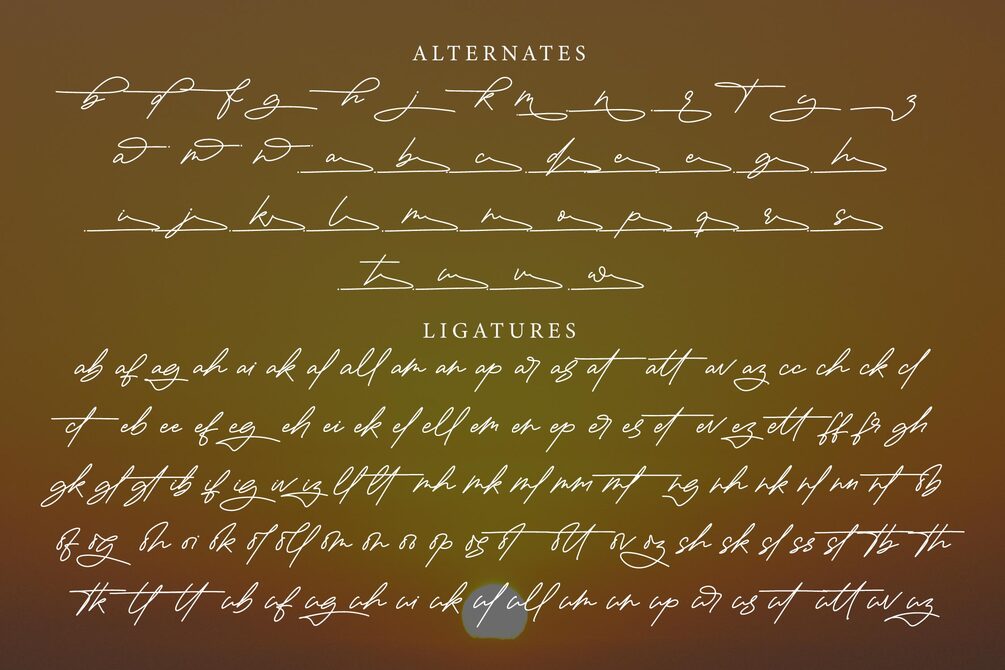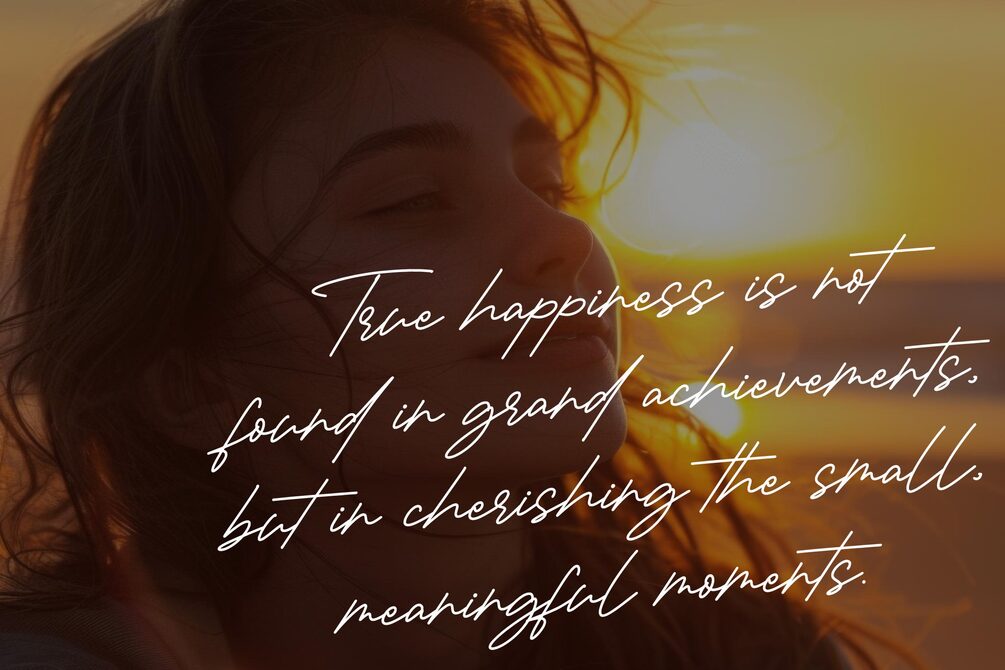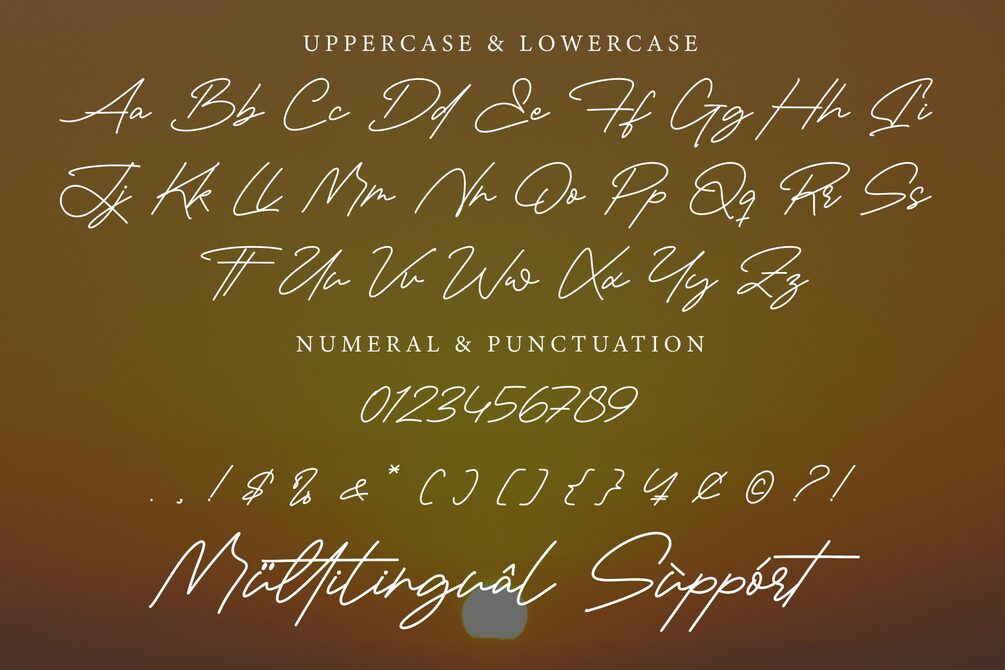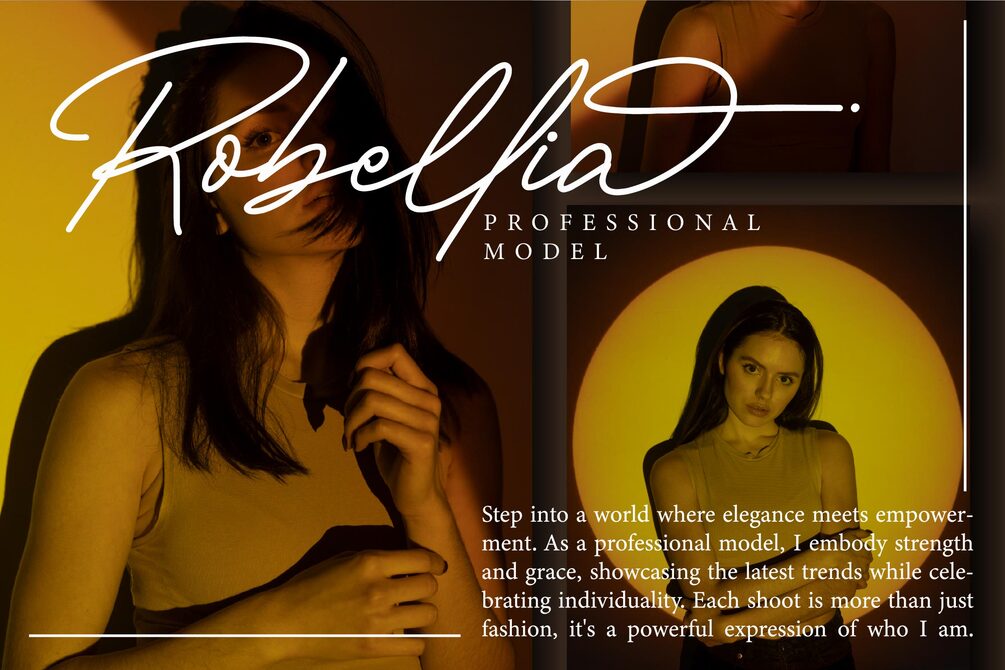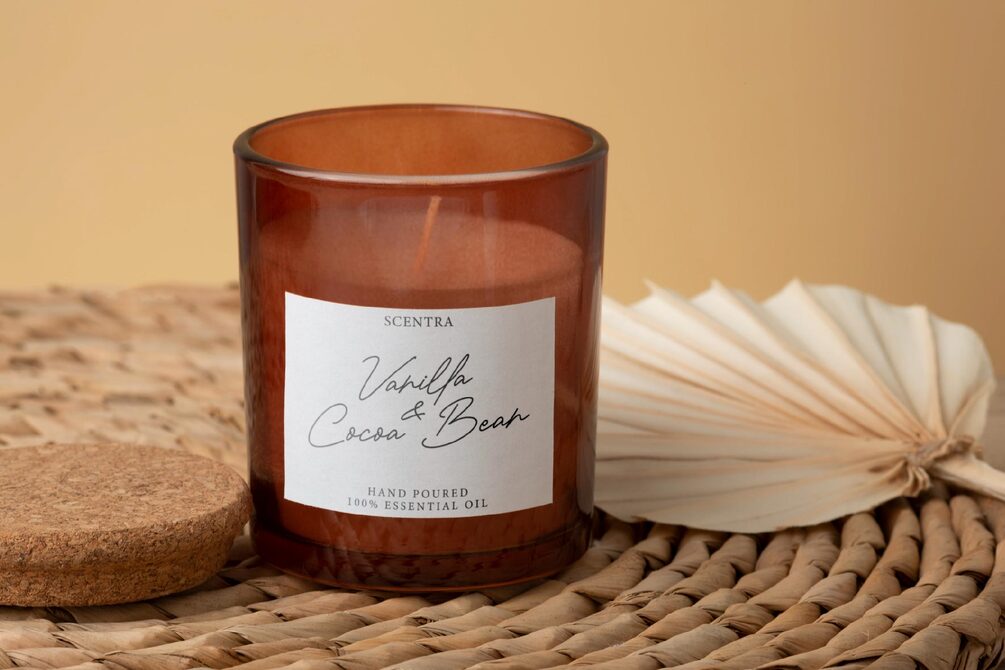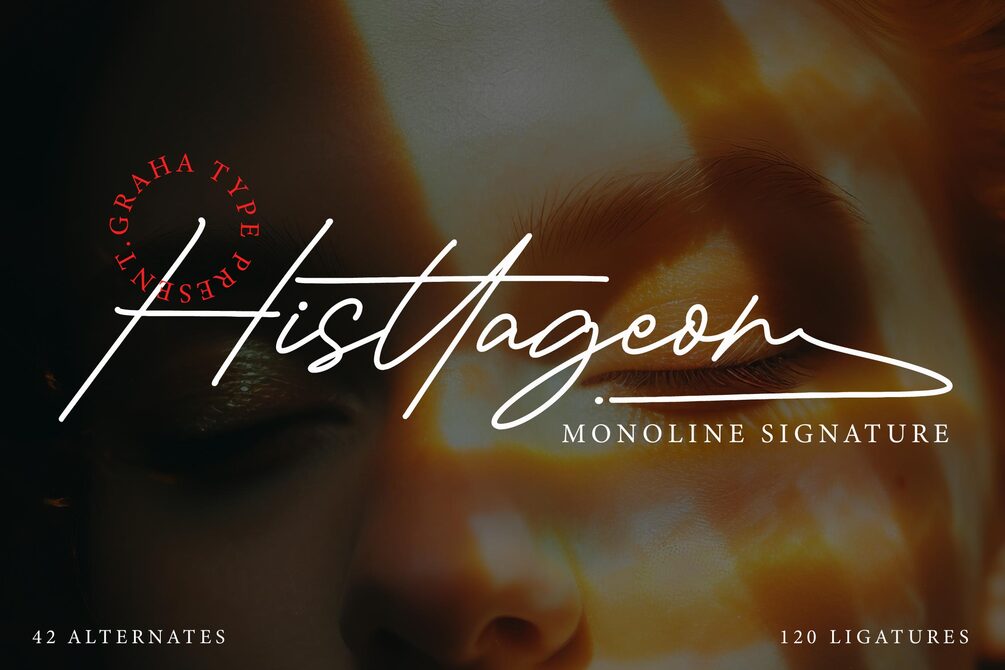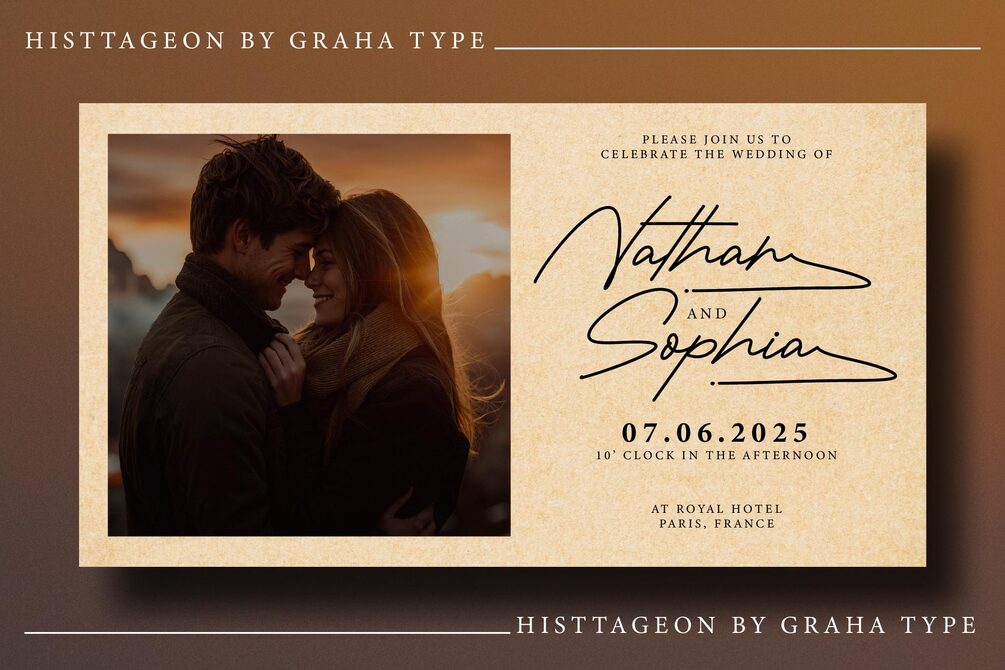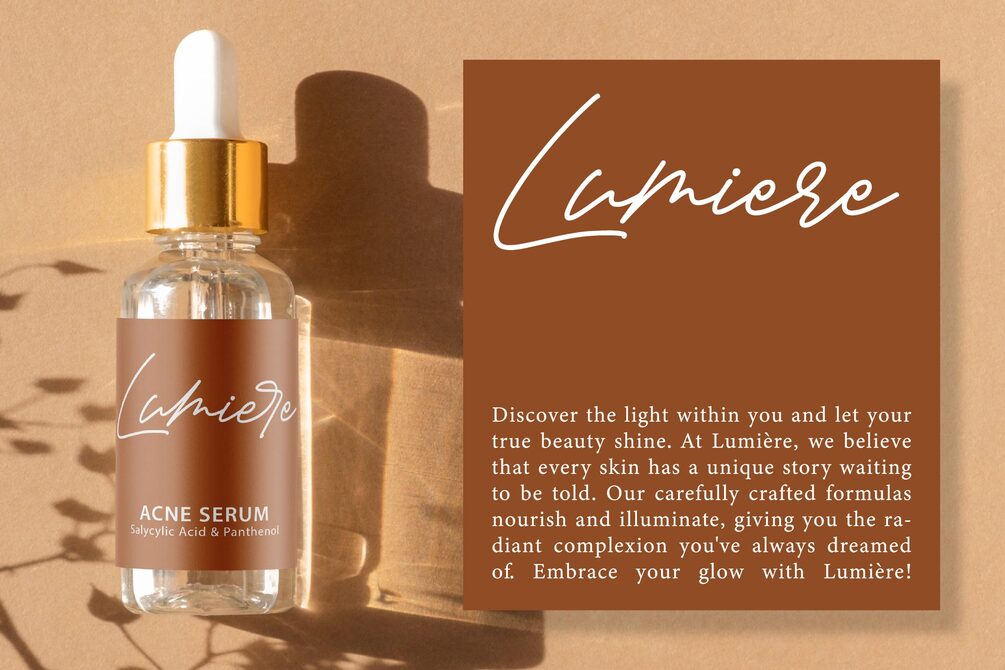
Histtageon - Monoline Signature Font
Histtageon is a monoline signature font that exudes elegance and modernity. With its clean lines and smooth flow, Histtageon offers a stylish appeal, making it perfect for logotypes, branding, invitations, and a variety of other design needs. Its minimalistic yet distinctive design allows Histtageon to seamlessly integrate into different projects. The grace of each curve and the precision of its proportions add a personal and professional touch to any displayed text.
Standard Glyphs
Alternates and Ligatures
Multilingual Support